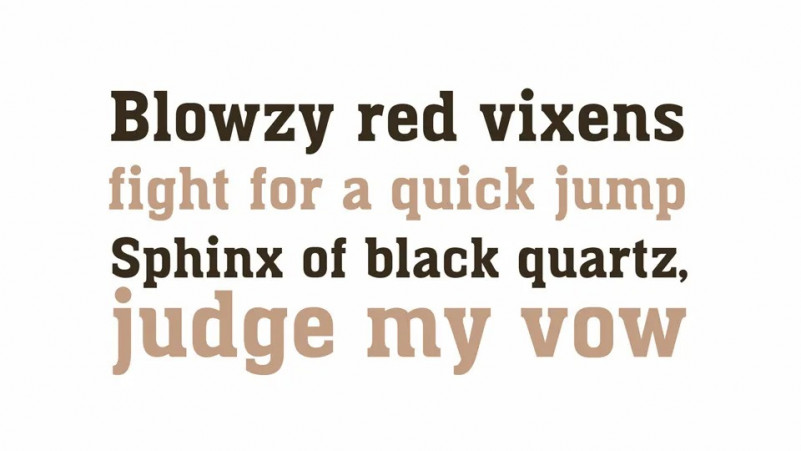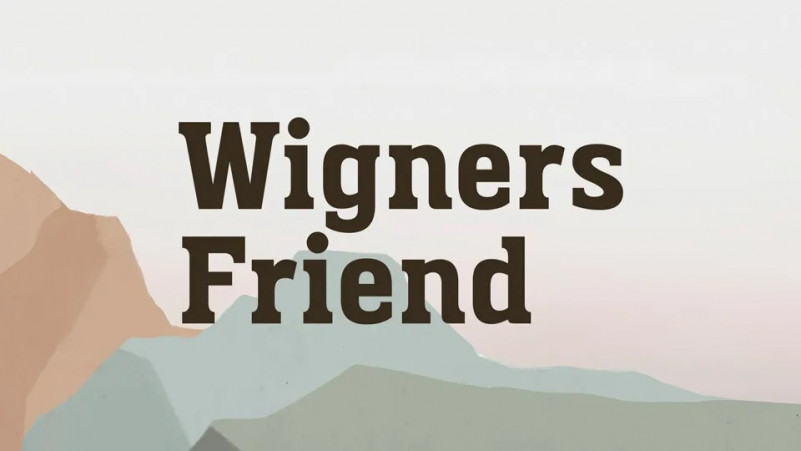
Wigners Friend Font
Say hello to  Wigners Friend Slab Serif Font was a very quick design because I needed it yesterday. It is a bit rough and ready. Oh well …This font was built to use in a graphic design project I was involved in and it proved useful in that role.
Wigners Friend
Wigners Friend was constructed very quickly and so probably contains some errors. If you find something which doesn’t work properly then let me know and I may fix it. If you don’t let me know I probably won’t fix it.
Be aware it is one style (no bold or italic), has a limited coverage and a minimal number of open type features.
This font was built to use in a graphic design project I was involved in and it proved useful in that role.